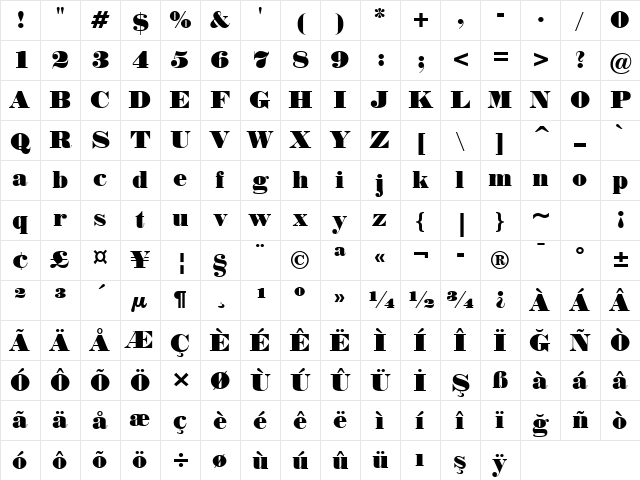
Normande BT Roman Free Font
Normande BT Roman
Normande BT Family
Design Context for Normande BT
Normande BT is a composed and adaptable typeface that performs quietly and consistently across a wide range of design contexts.